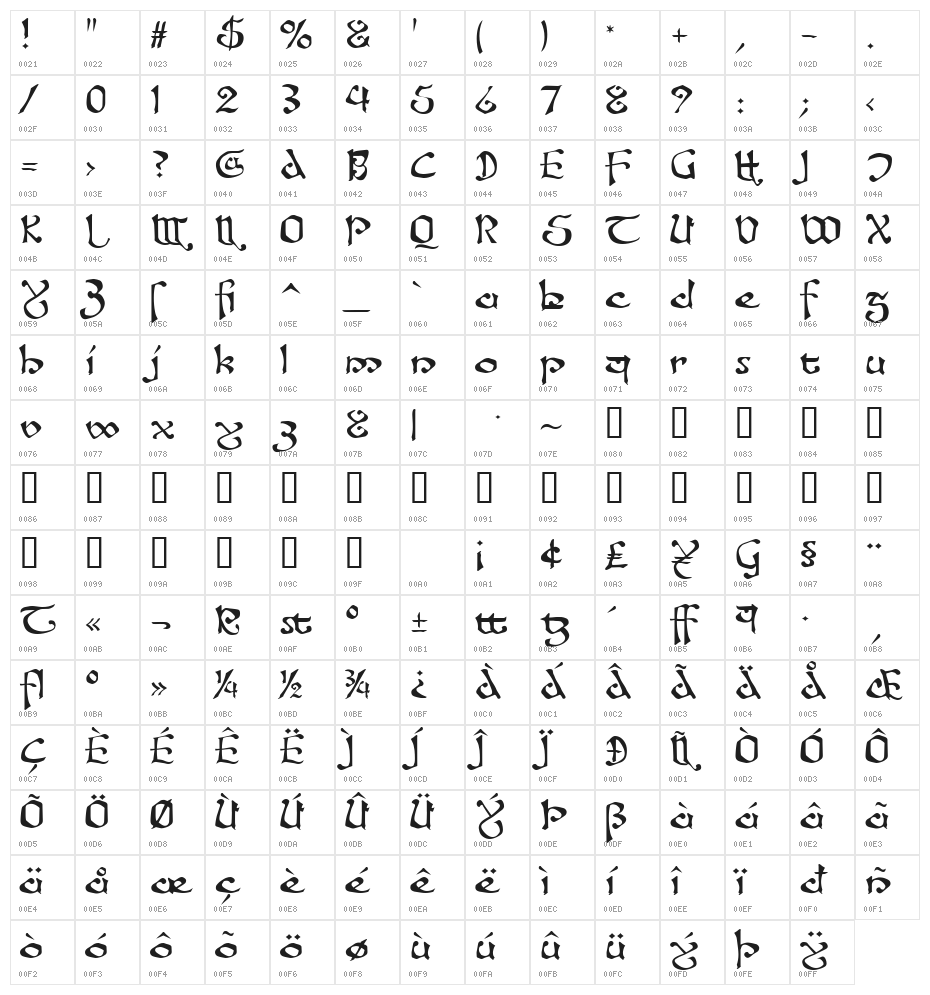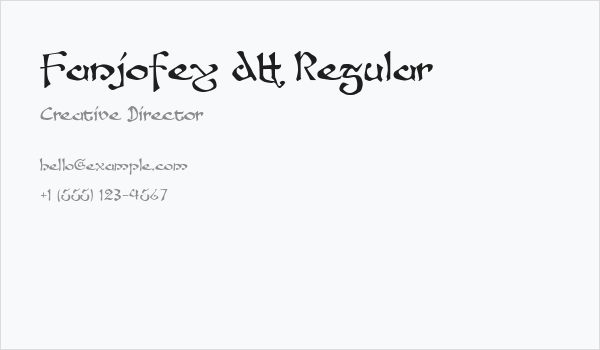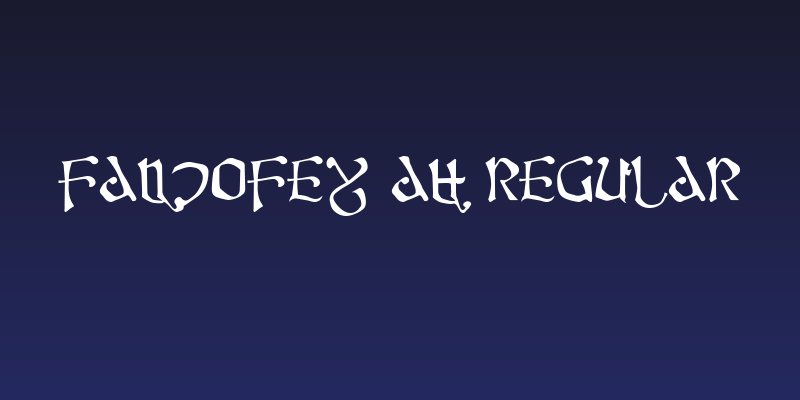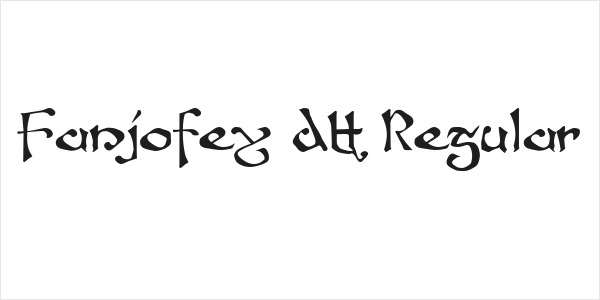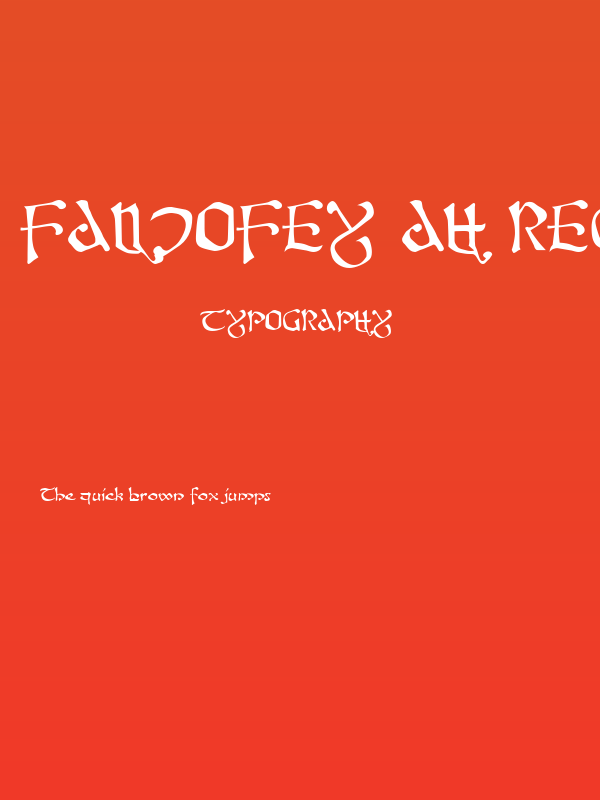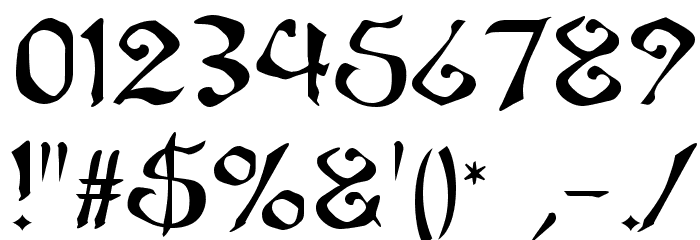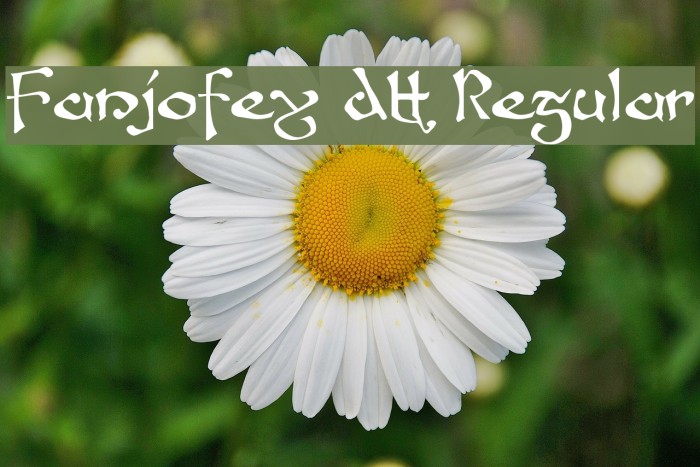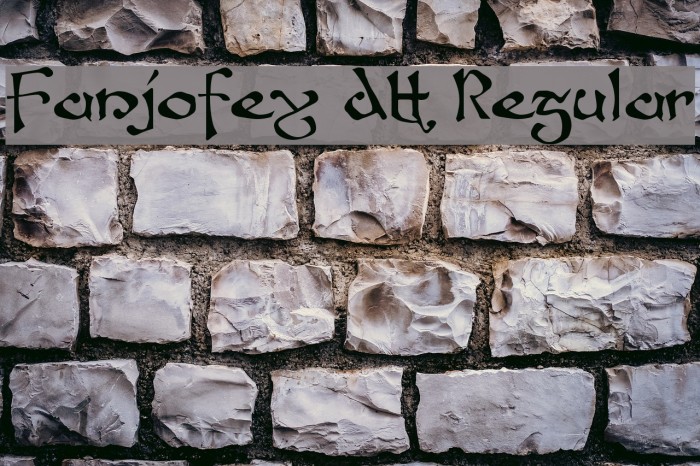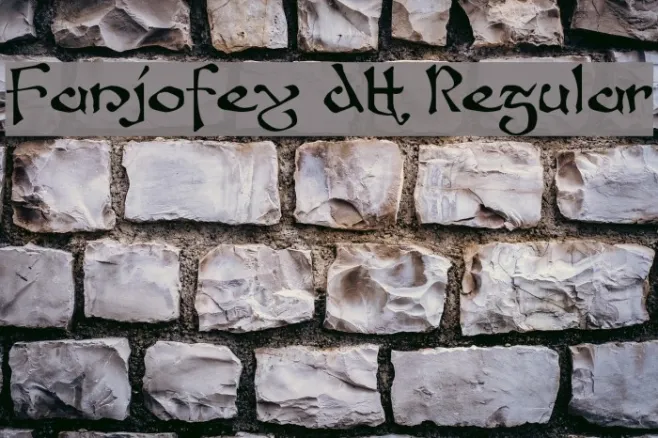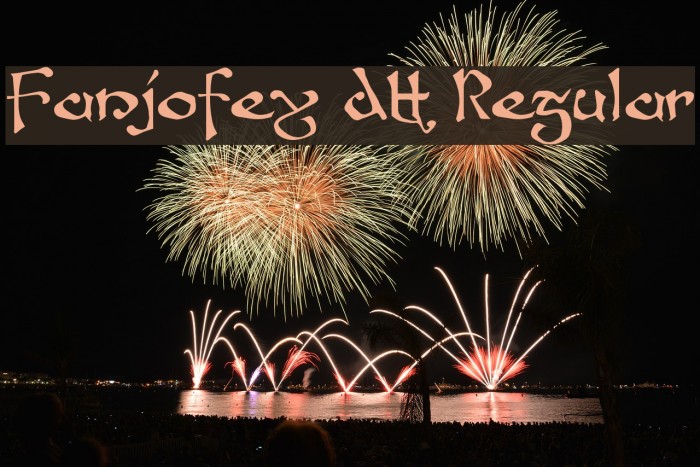
Fanjofey AH Regular Font
Fanjofey AH Regular Description
This font features a bold and dramatic style reminiscent of traditional calligraphy with a modern twist. The characters are intricately designed with sharp angles and flowing curves, creating a sense of movement and elegance. The uppercase letters are particularly striking, with unique flourishes that add a touch of sophistication. The lowercase letters maintain the same level of detail, ensuring consistency throughout the text. Numbers and special characters are equally well-crafted, making this font versatile for various uses. The overall appearance is both artistic and readable, suitable for projects that require a distinctive and eye-catching typeface.
| Use Case | Headlines, Logos, Decorative text |
| Proposed Projects | Ideal for invitations, branding, logos, and decorative headings. |